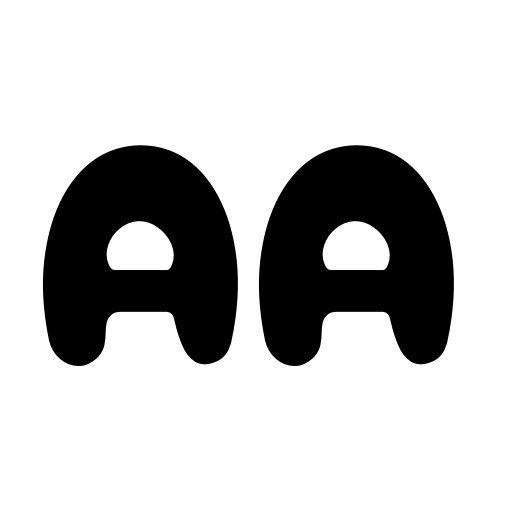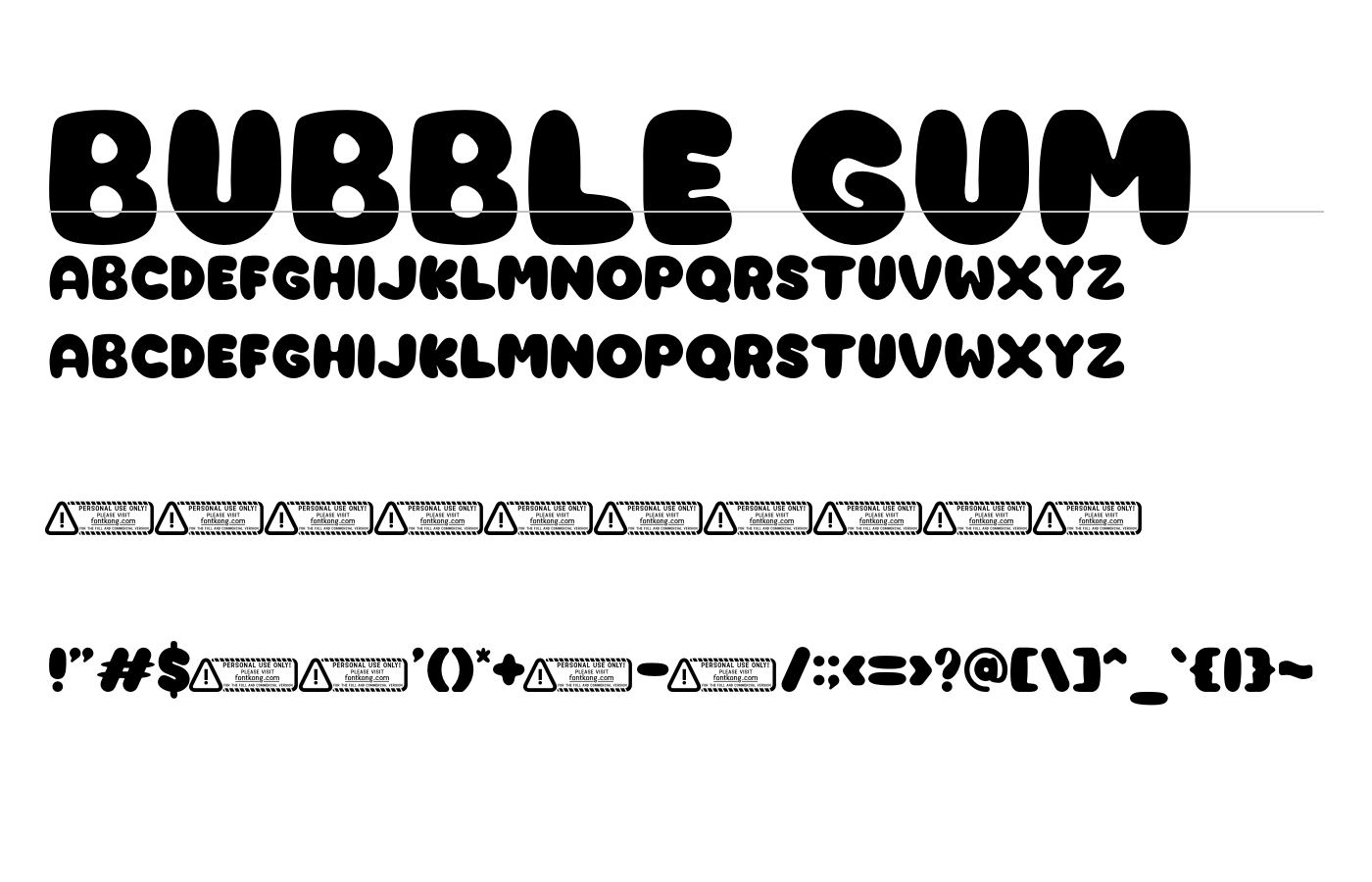
Bubble Gum Font is a playful, bold sans serif typeface with rounded, bubbly letterforms that evoke a fun and casual vibe. Its heavy weight and soft, smooth strokes make it ideal for eye-catching headlines, children’s designs, and informal branding that seeks a friendly and approachable look. This font works best in creative projects where a cheerful and lighthearted tone is desired.
Bubble Gum Font
About Bubble Gum Font